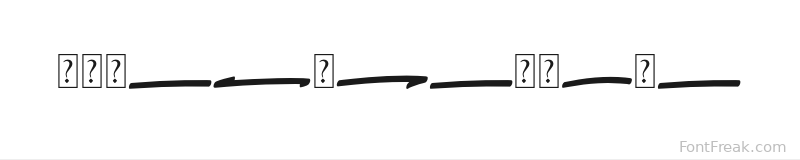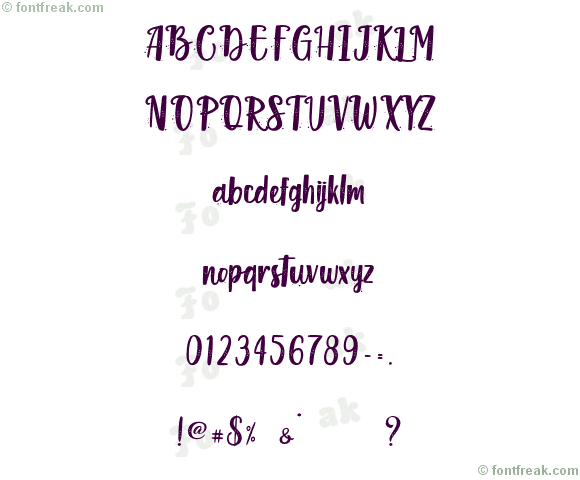
Blisk Rhythm - Personal Use
Blisk Rhythm - Personal Use is a charming handwritten font designed by Suthi Srisopha, categorized under the script style. This font showcases a delightful blend of fluid curves and playful strokes, giving it a warm, inviting appearance. The stroke weight varies to create an engaging visual rhythm, while the spacing between letters is thoughtfully designed to enhance readability without sacrificing its artistic flair. The decorative elements, such as subtle swirls and loops, add a whimsical touch that makes the font stand out.
This font is particularly well-suited for a variety of creative projects. It can beautifully elevate wedding invitations, lending a personal and romantic feel to the occasion. Additionally, it works wonderfully for movie posters, infusing them with a sense of creativity and flair that captures attention. Restaurant menus will benefit from its friendly and approachable style, making dishes seem more inviting. Furthermore, it’s an excellent choice for social media graphics, allowing content creators to engage their audiences with a unique aesthetic.
The target audience for Blisk Rhythm includes graphic designers, small business owners, and content creators who seek to add a personal touch to their work. Whether you're crafting a heartfelt message or promoting a new product, this font can help convey your brand's personality and values effectively.
What sets the Blisk Rhythm - Personal Use font apart is its blend of elegance and playfulness, making it a versatile tool for various design projects. It invites creativity and warmth, allowing users to express their ideas in a visually appealing manner. For those looking to enhance their projects with a unique touch, the Blisk Rhythm - Personal Use font free download is an excellent choice.